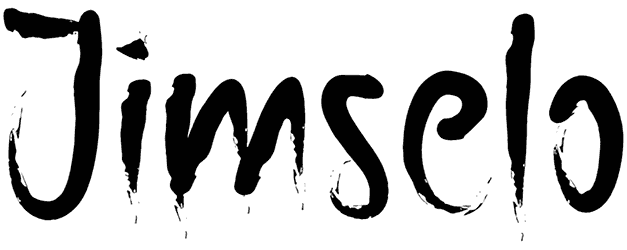
Halloween Font
If you want others to feel spooky from your content and have a Halloweeny type of mood, then you need a Halloween font. Considering the foregoing, we suggest Halloween, which would perfectly work in so many different areas, like Halloween and costume parties flyers, posters, cartoons, comic books, etc.
This font comes with a great collection of characters containing only both the uppercase and lowercase of the alphabet except for any numbers or punctuation marks.
Designed by: Niki Studio